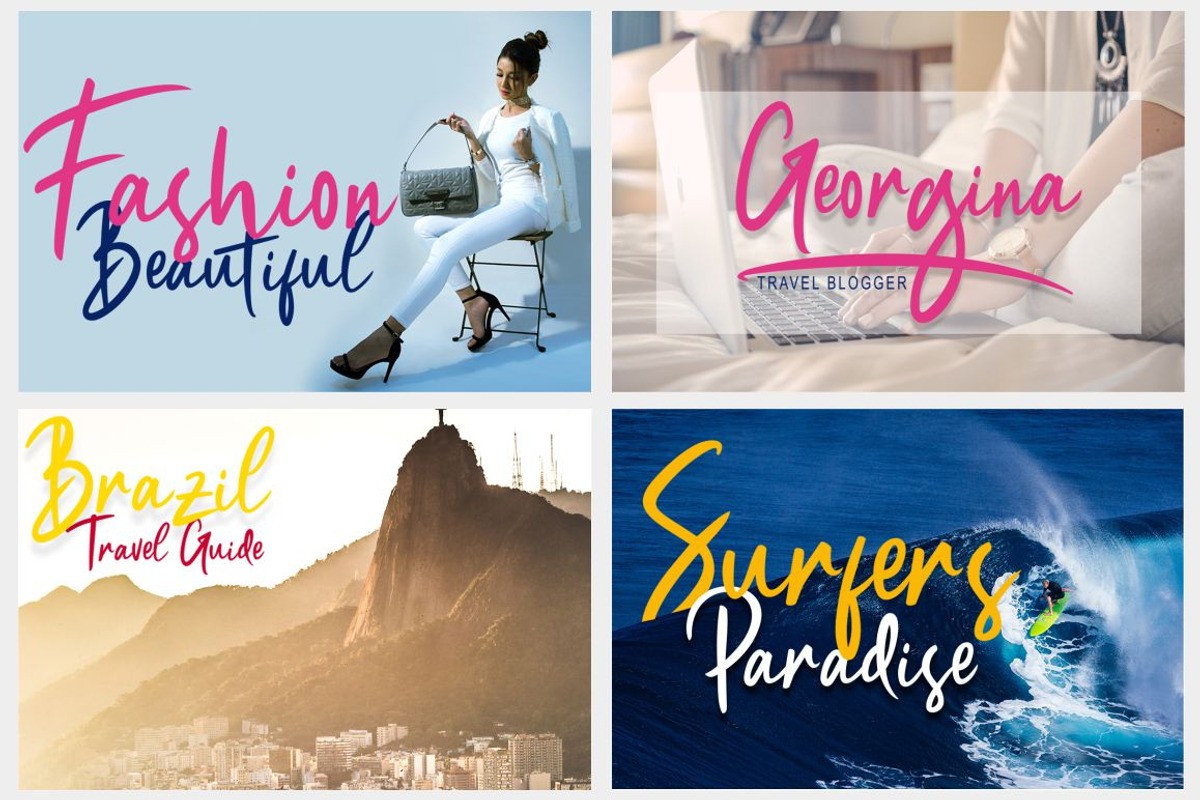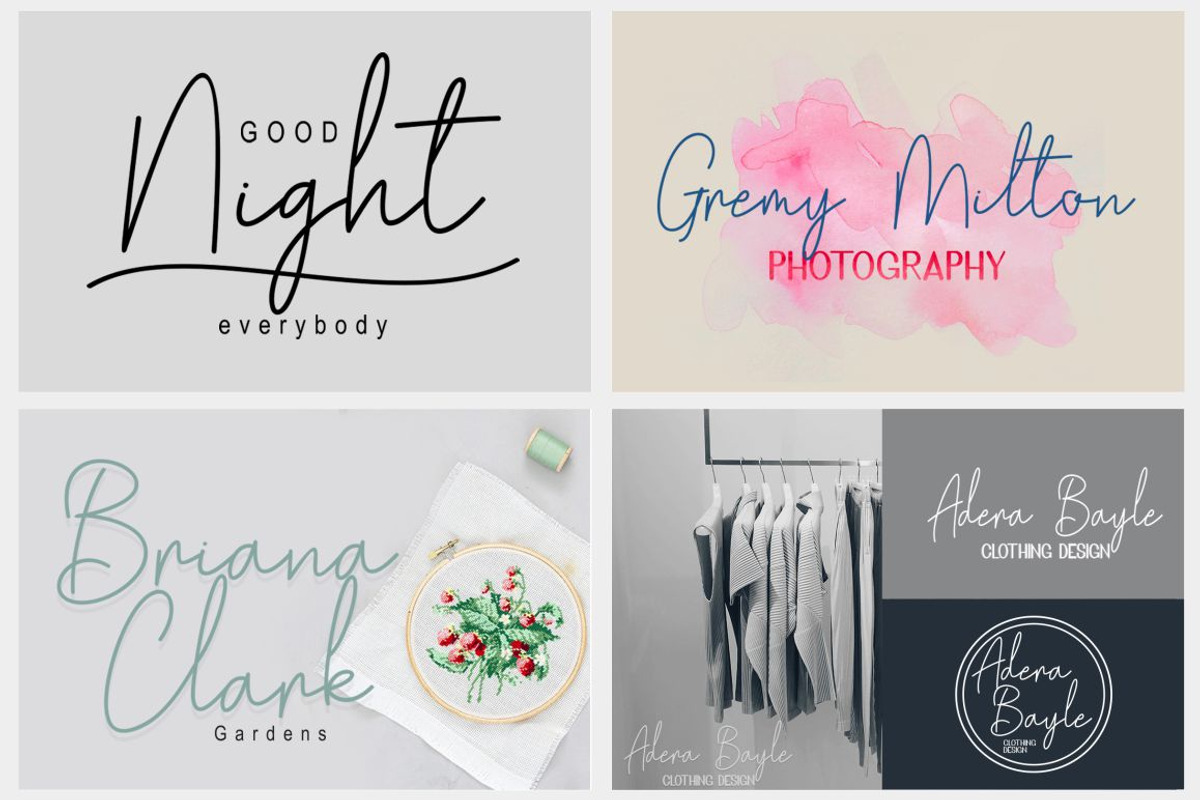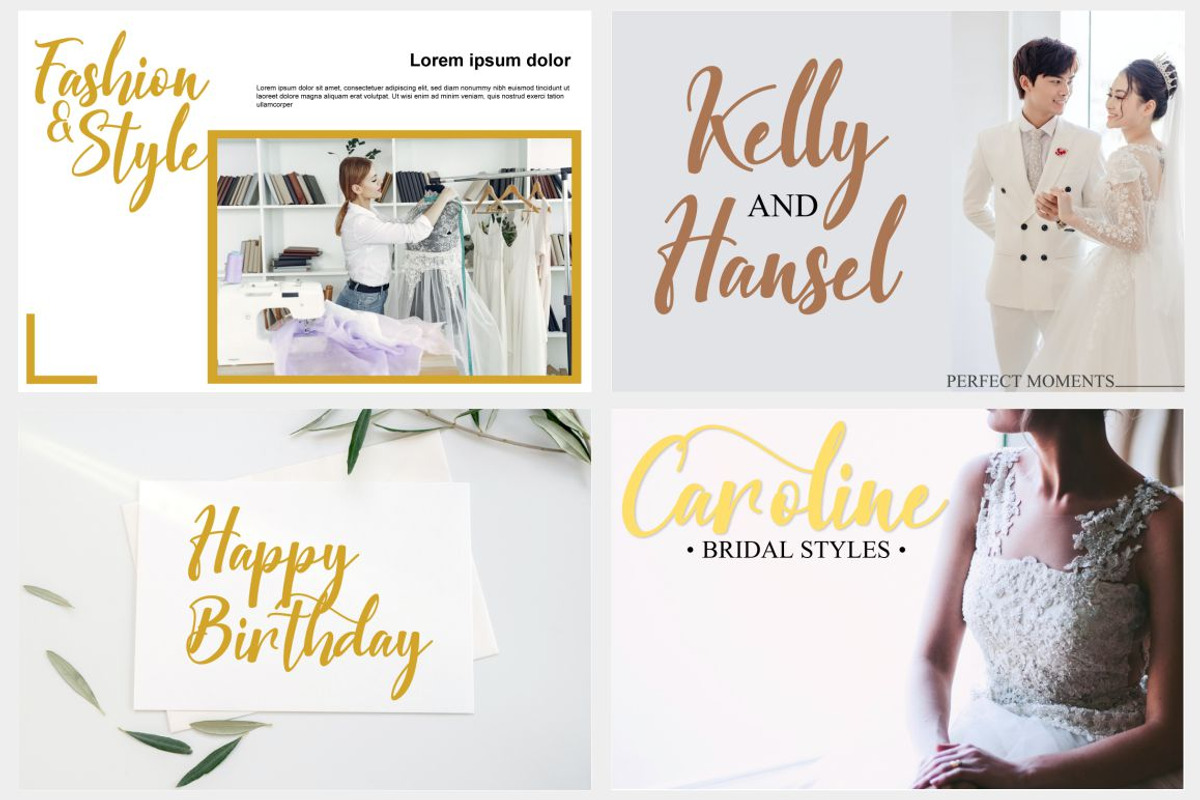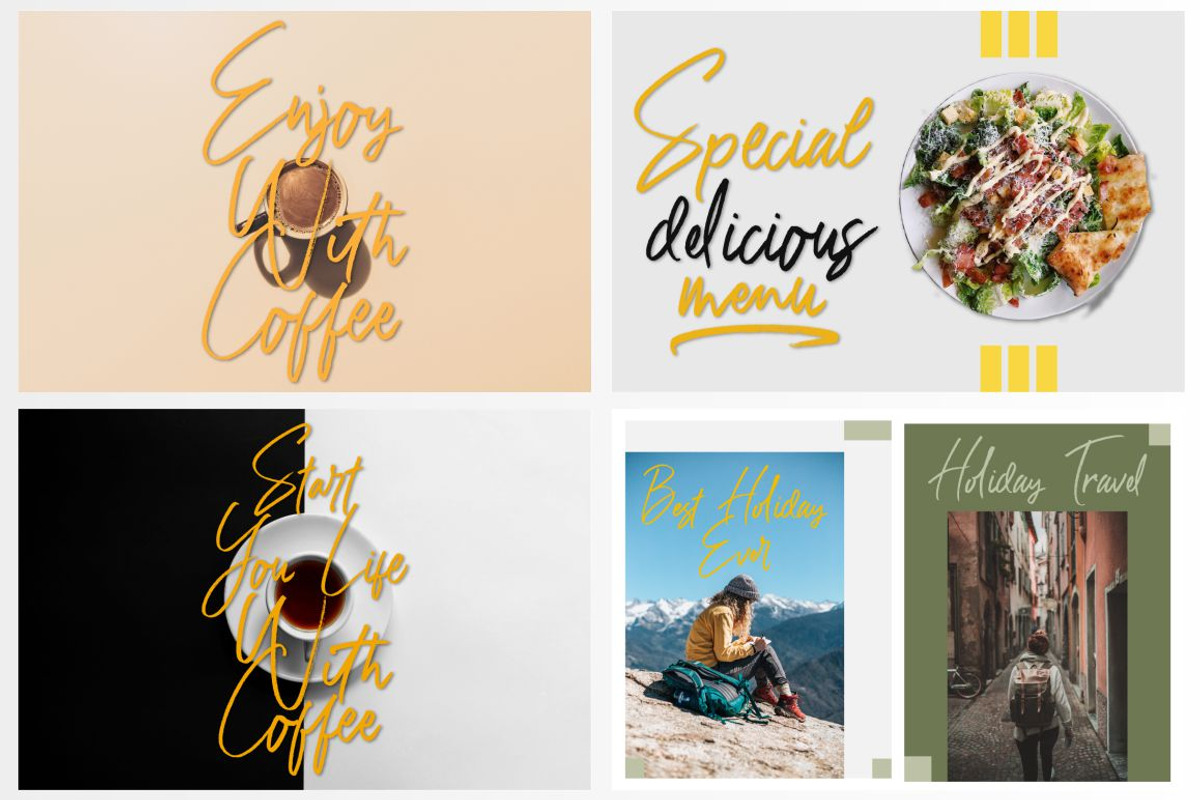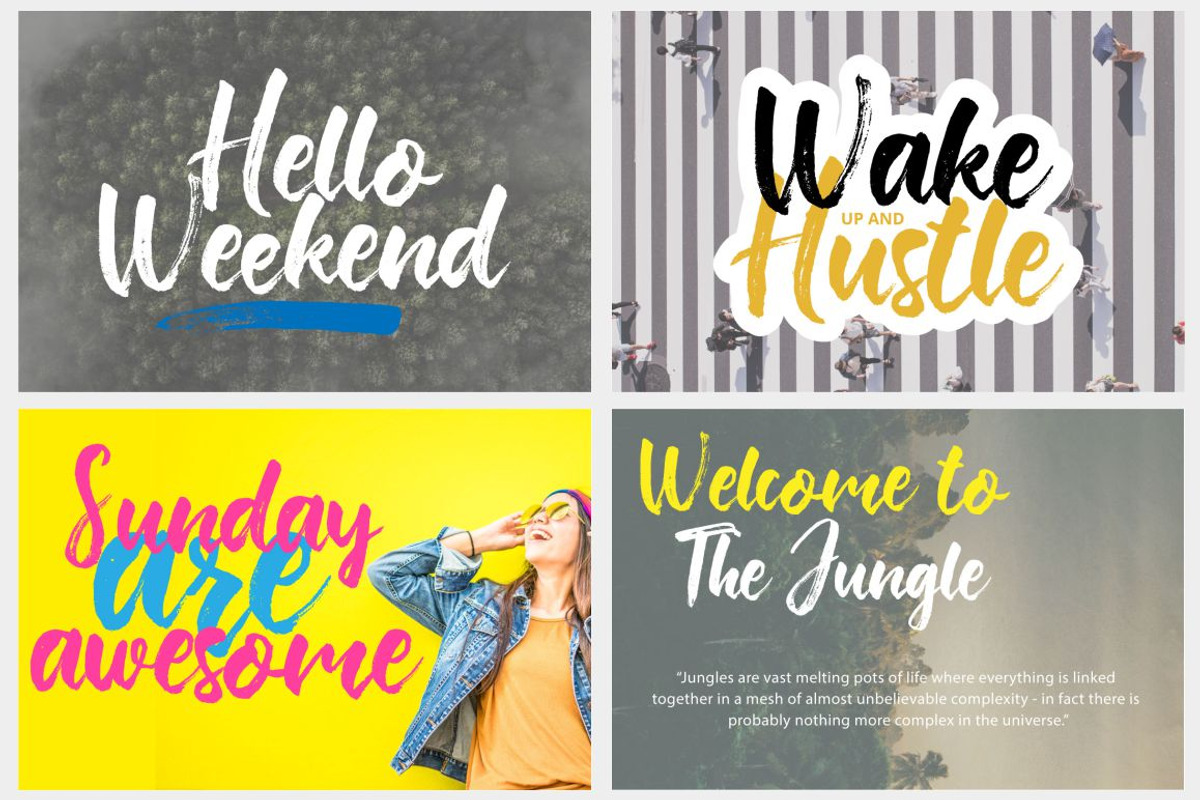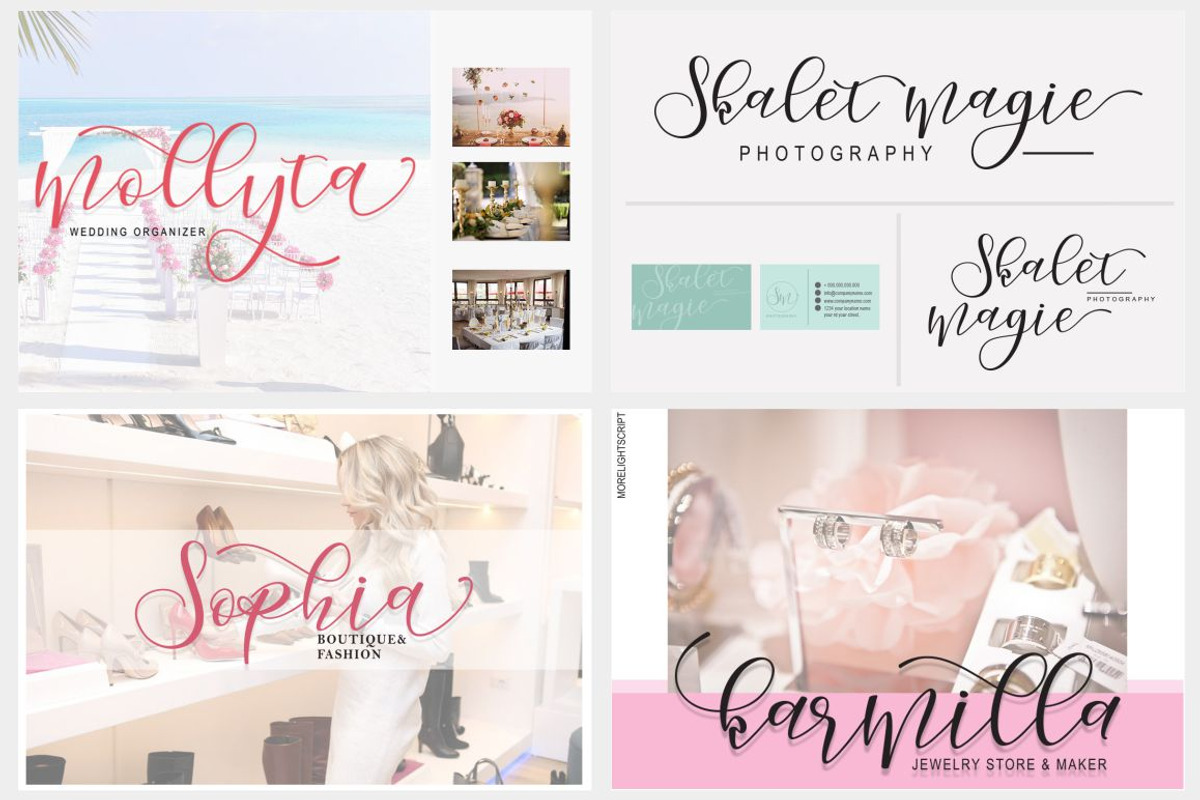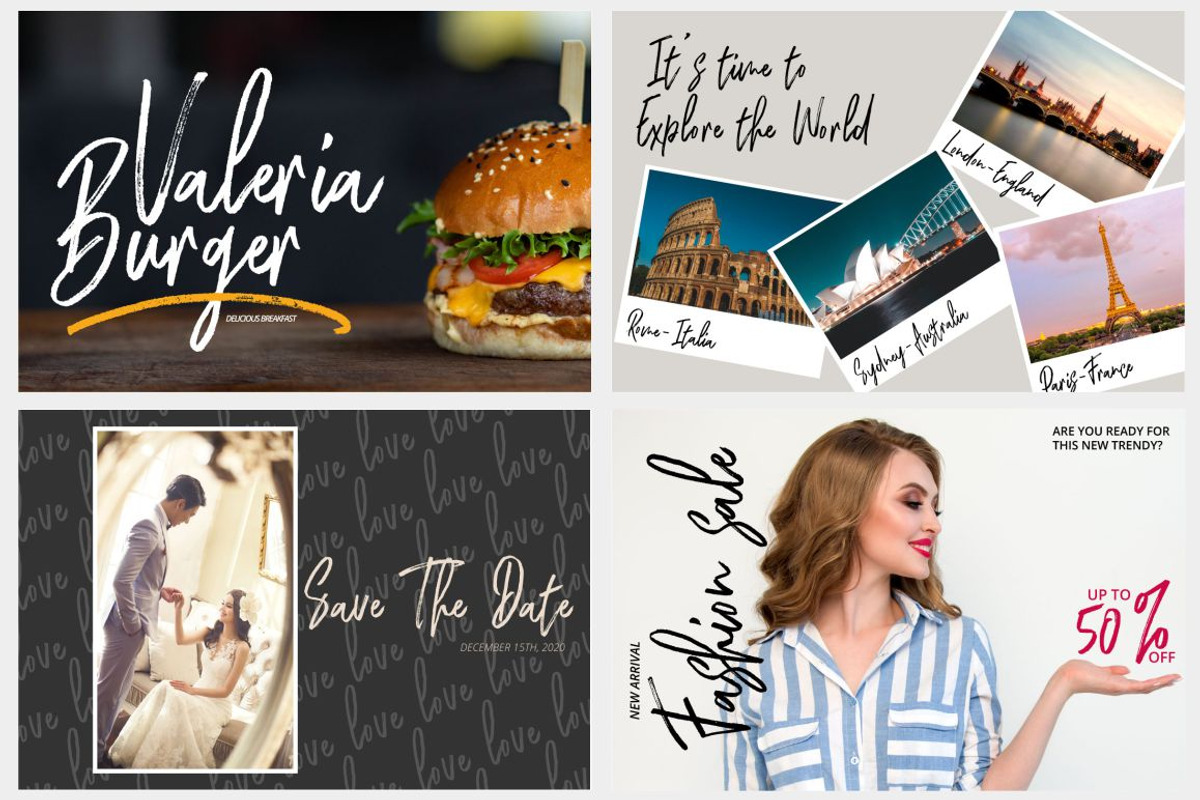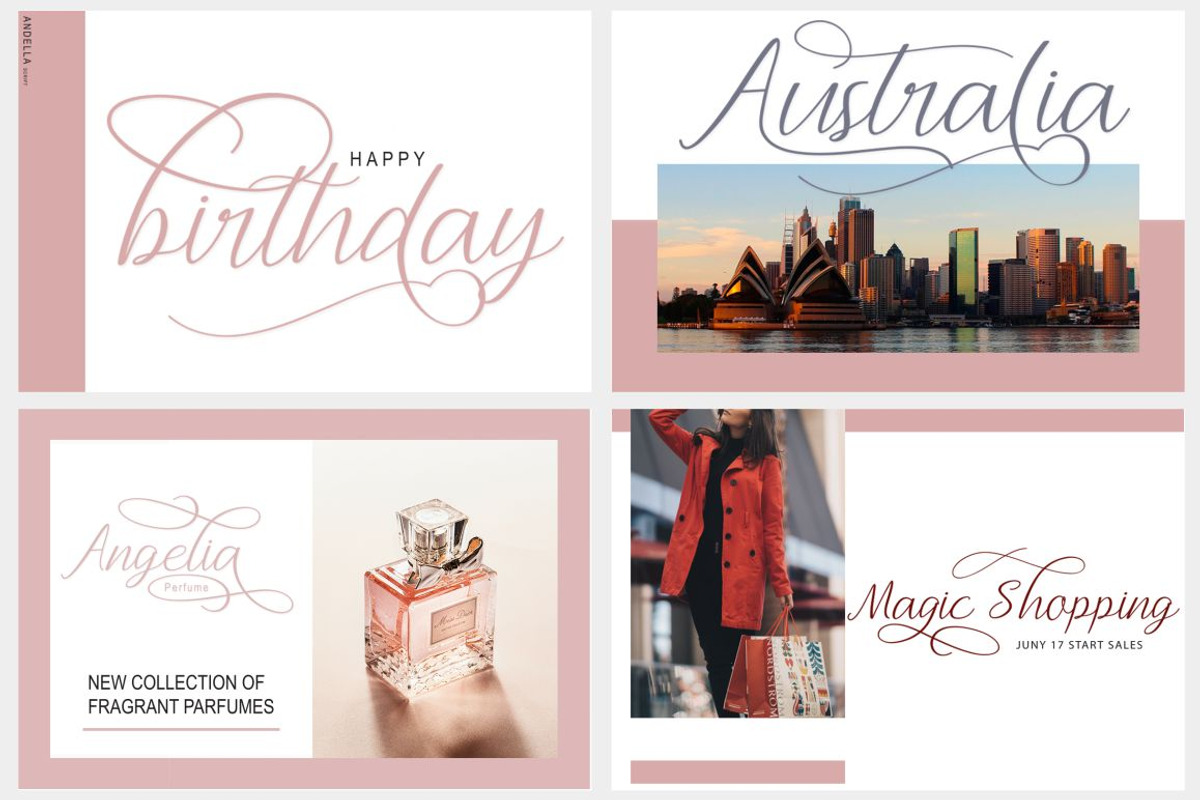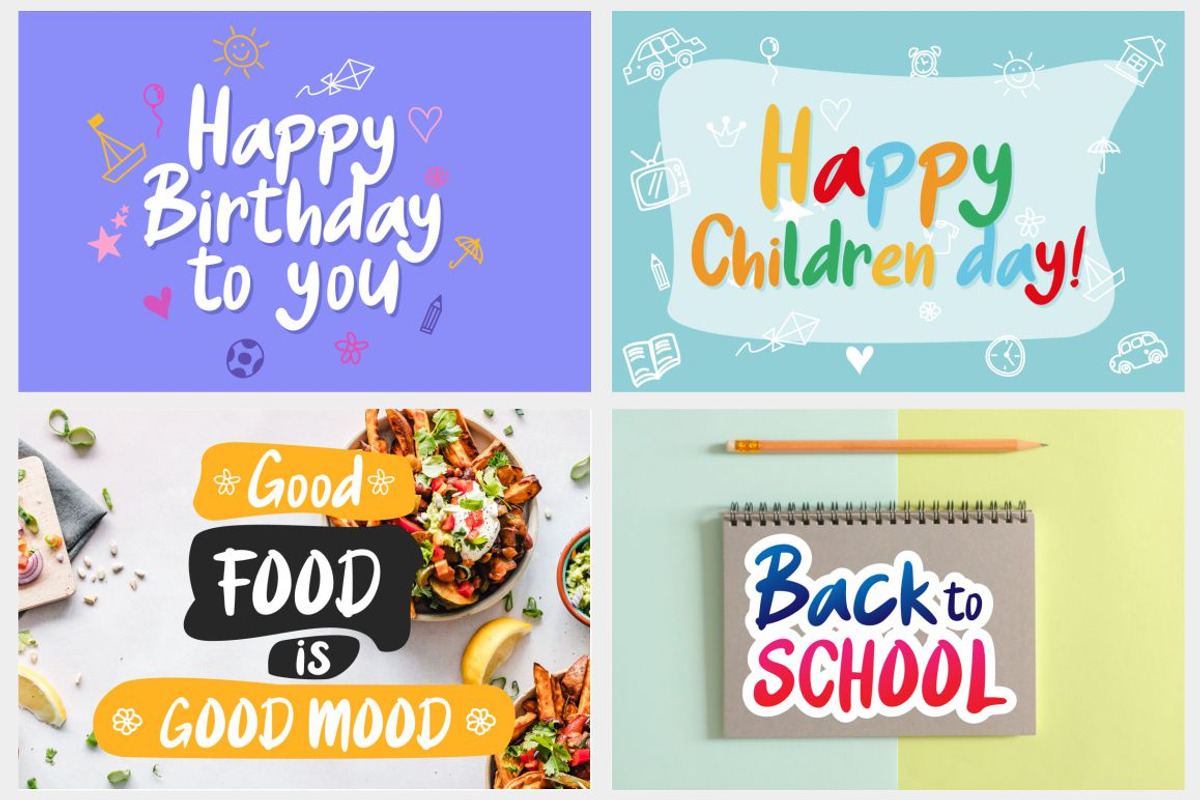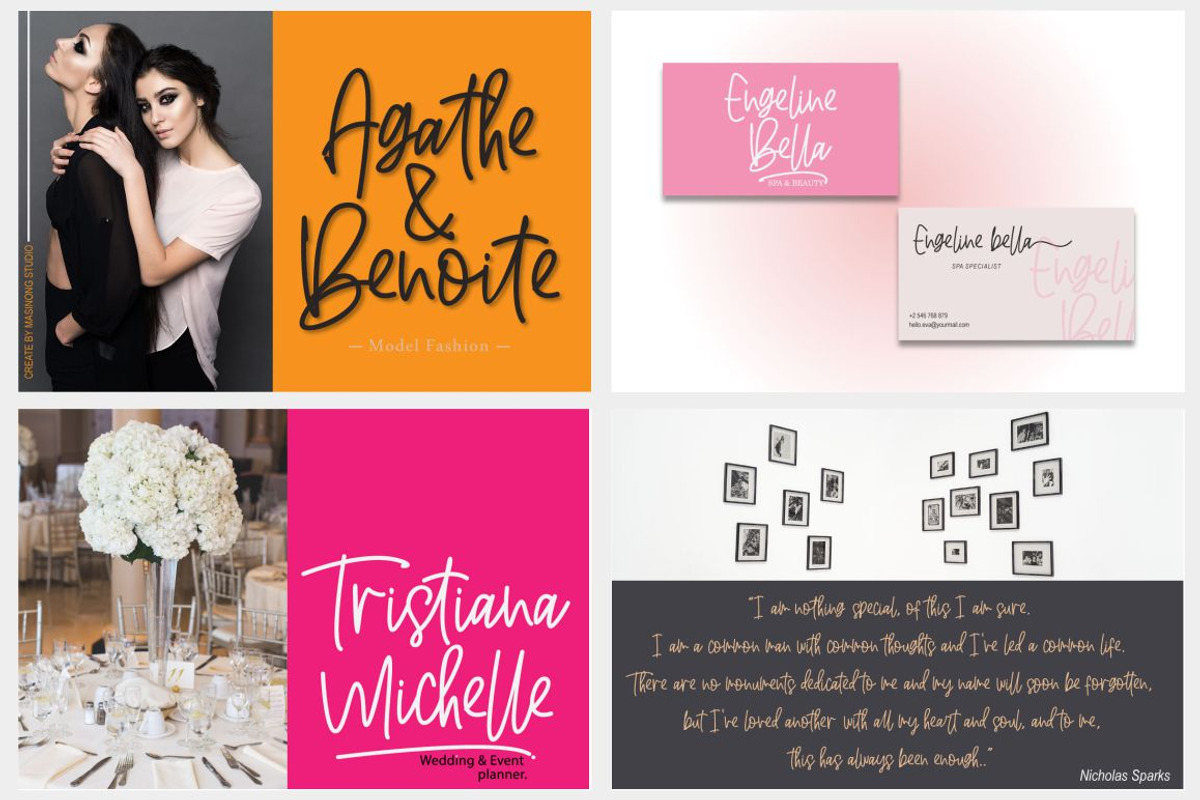
All in one Font Bundles
Includes some of the best-selling fonts with alternative font types, ligatures, swashes, multilingual, and more.
All fonts are perfect for branding, posters, banners, signs, logos, blogs, wedding invitations, greeting cards, t-shirts, letterheads, merchandise, signs, labels, news, posters, badges, etc.